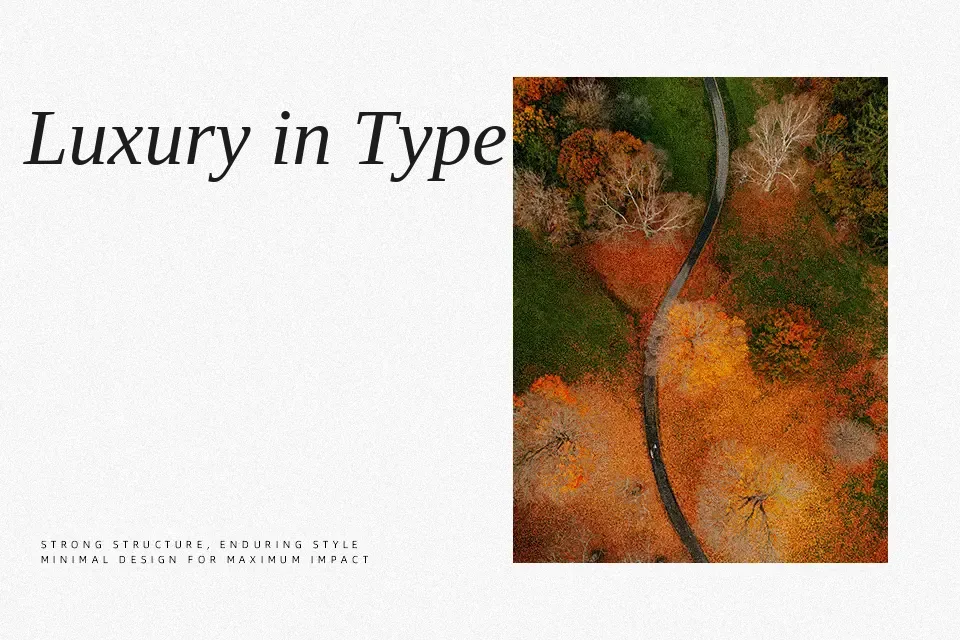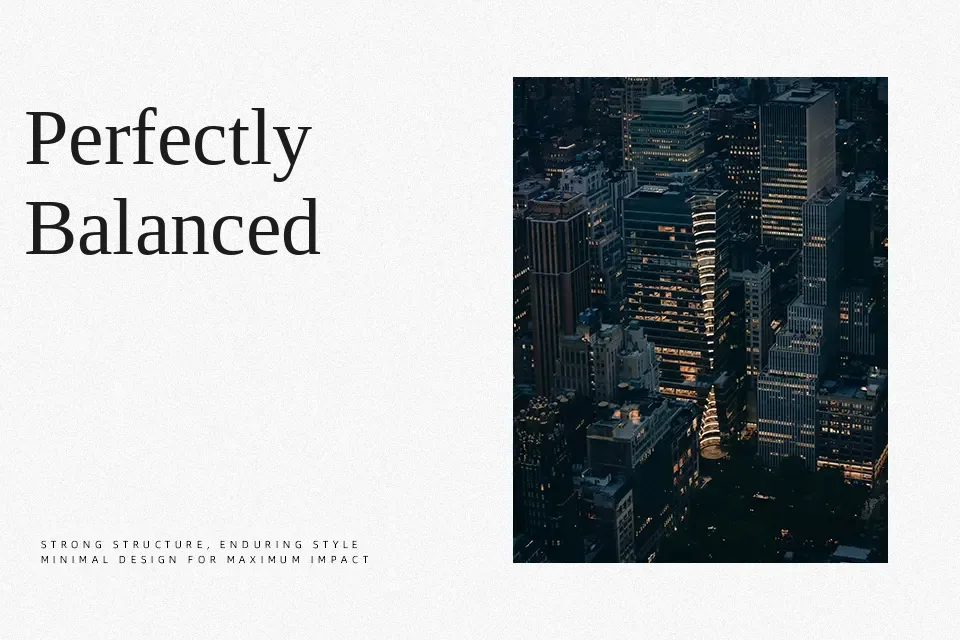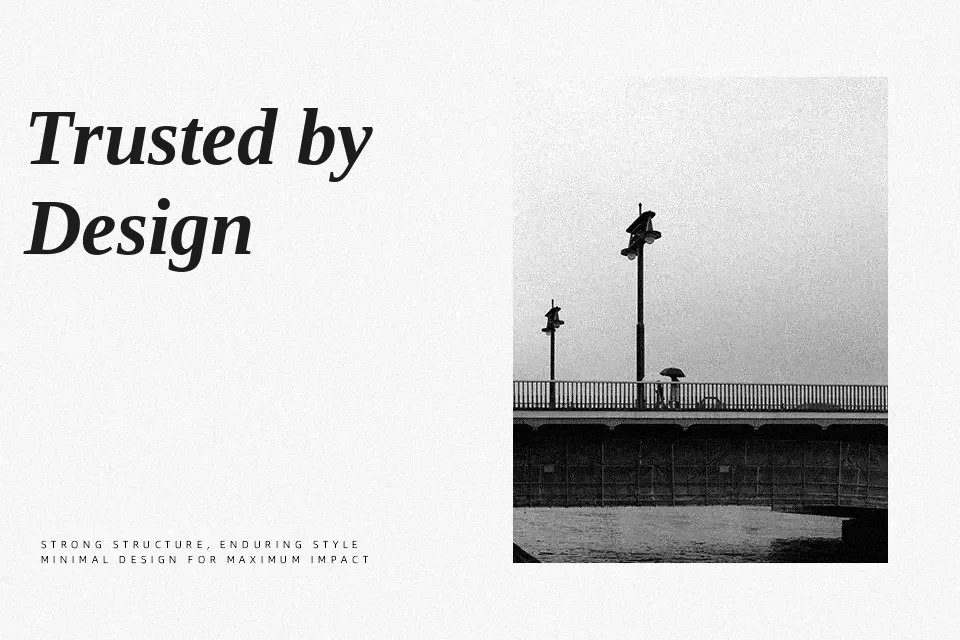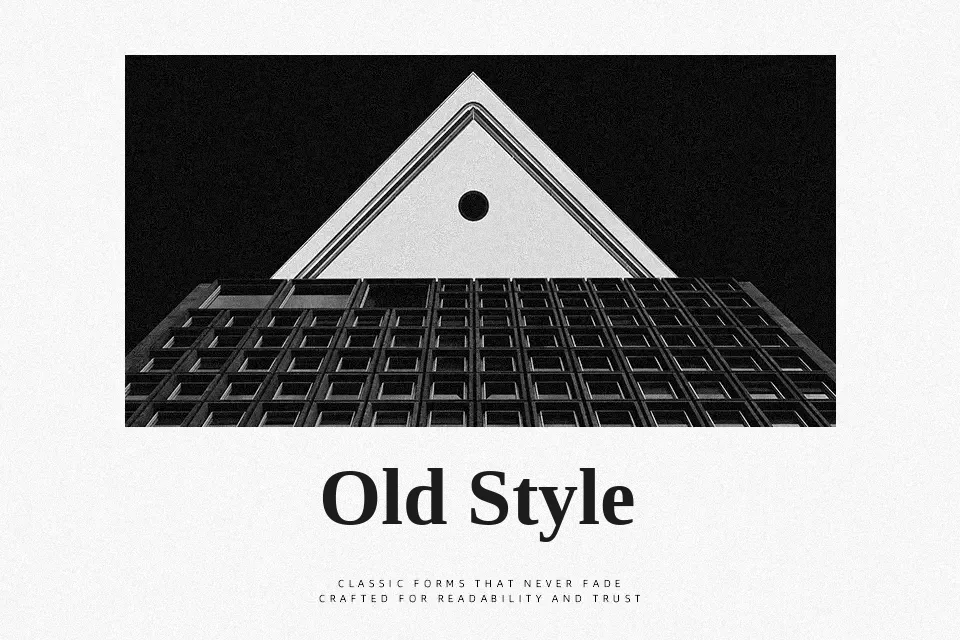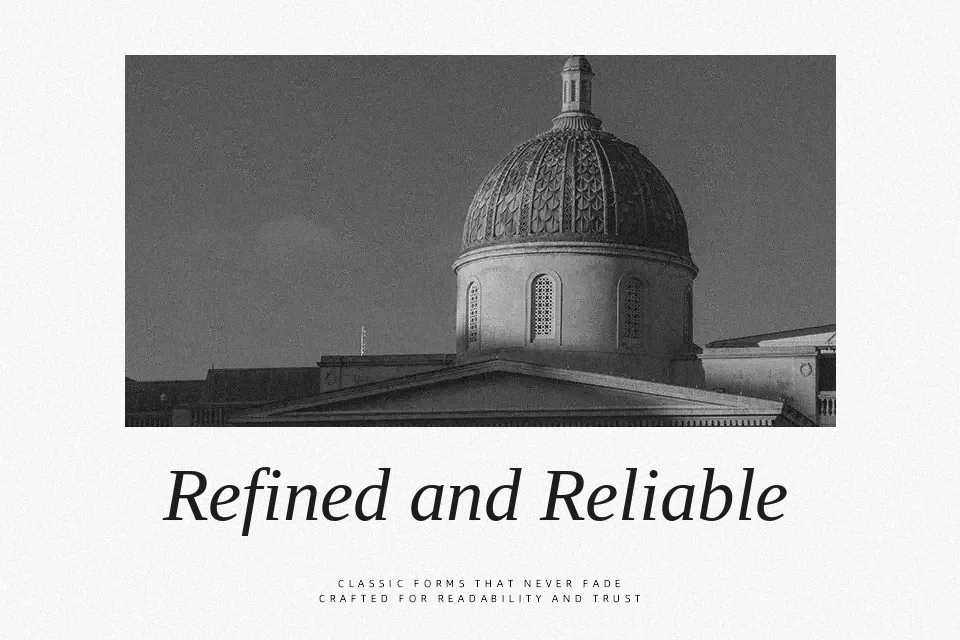
Tinos Font
Tinos is a modern serif with controlled contrast, open counters, and generous spacing that keeps text clear at small sizes and on lower-resolution screens. Its proportions closely track Times New Roman, so documents retain their flow while gaining a calmer, less fussy rhythm. The family covers regular, italic, bold, and bold italic weights with a broad pan-European character set, which helps when you need one workhorse serif across languages. It shines in long reports, UI text, and academic PDFs, but feels too sober for expressive branding or highly decorative layouts where a more characterful display face would be a better fit.
Screen-optimized body text in apps and software UI
Long reports, theses, and technical documentation needing Times-compatible metrics
Cross-language corporate documents using one consistent serif family
Expressive logos or lifestyle branding that need a distinctive voice
Playful children’s designs or highly decorative posters
Oversized headlines that call for a more dramatic display serif
Perfect for body text, business card, and editorial, with a classic and serif style.